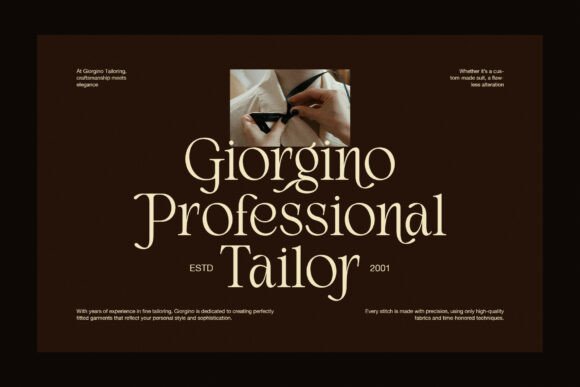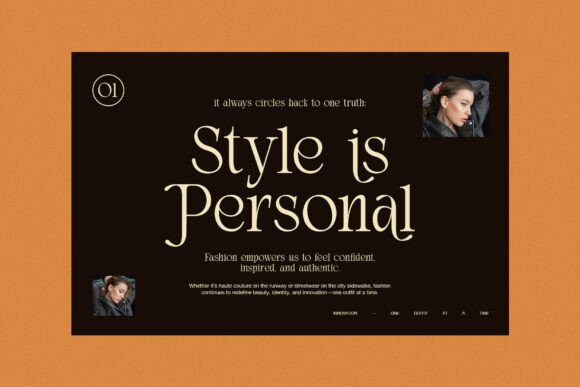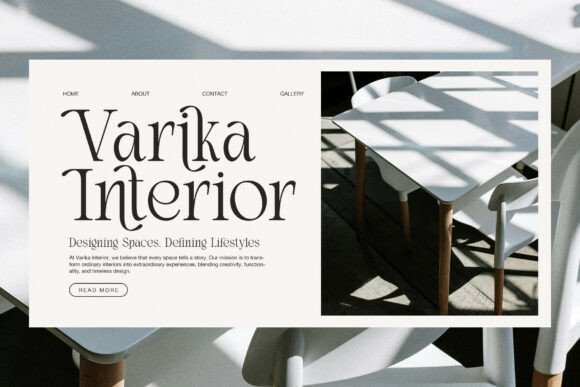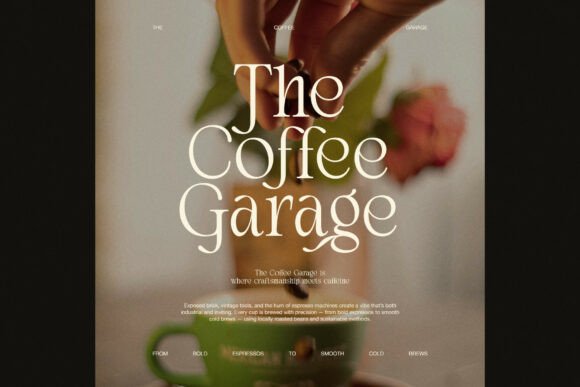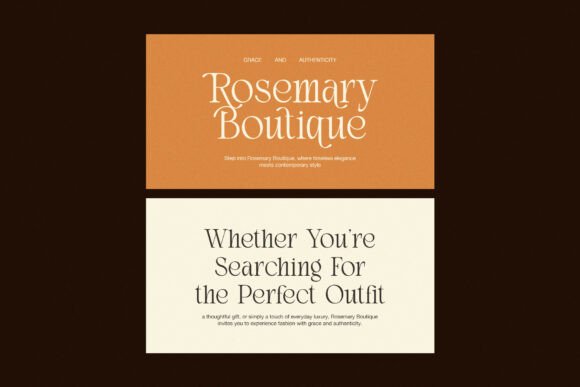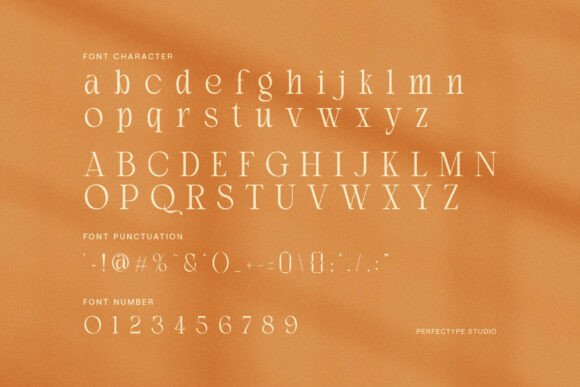
Introducing Damon Font: Elevate Your Designs with Timeless Elegance
In the world of typography, a well-crafted font can make all the difference in bringing a design project to life. For designers and crafters seeking to infuse their creations with sophistication and refinement, Damon Font is an exceptional choice. This elegant serif font is meticulously designed to deliver a sense of luxury and approachability, making it perfect for a wide range of applications.
The Essence of Damon Font
Damon Font is characterized by its thoughtful design, where every curve, serif, and stroke exudes a sense of refinement. This typeface strikes a beautiful balance between modern minimalism and classic sophistication, yielding a luxurious yet approachable aesthetic. The result is a font that feels both high-end and inviting, suitable for various design projects.
Key Features of Damon Font
- Elegant Serif Design: Damon Font boasts a classic serif design, complete with delicate flourishes that add a touch of sophistication to any text.
- High Contrast: The font’s high contrast between thick and thin strokes creates a visually appealing rhythm, making it perfect for headlines, titles, and editorial layouts.
- Smooth Rhythm: Damon Font’s smooth rhythm ensures that text flows effortlessly, enhancing readability and balance in any design.
- Timeless Beauty: With its classic design elements, Damon Font achieves a timeless beauty that transcends fleeting trends, making it an excellent investment for designers.
Applications of Damon Font
Damon Serif Font’s versatility makes it an excellent choice for a variety of creative projects. Some of the ways designers can utilize this elegant font include:
- Brand Identity: Establish a sophisticated brand image with Damon Font, perfect for luxury brands, high-end products, and service providers.
- Packaging Design: Elevate product packaging with a font that communicates elegance and refinement, ideal for premium products and gift items.
- Editorial Layouts: Enhance the readability and aesthetic appeal of editorial content, such as magazines, newspapers, and digital publications.
- Digital and Print Design: Seamlessly transition between digital and print formats with a font designed to maintain its integrity across various mediums.
Why Choose Damon Font?
In a sea of fonts, Damon Serif Font stands out for its unique blend of elegance, sophistication, and approachability. Here are a few reasons why designers and crafters should consider adding Damon Font to their toolkit:
- Instantly Attractive: The stylish look of Damon Font instantly attracts attention, making it perfect for projects where visual impact is crucial.
- Readability and Balance: Damon Font maintains exceptional readability and balance, ensuring that the message is conveyed clearly and effectively.
- Luxurious yet Approachable: Achieve a luxurious look without sacrificing approachability, making Damon Font suitable for a wide range of audiences and applications.
Damon Font is a masterpiece of typographic design, offering a unique blend of elegance, sophistication, and approachability. Whether you’re a designer looking to elevate your brand identity, a crafter seeking to add a touch of luxury to your products, or a publisher aiming to enhance your editorial layouts, Damon Serif Font is an exceptional choice. With its timeless beauty, high contrast, and smooth rhythm, Damon Font is poised to become a staple in the world of typography.
Discover the transformative power of Damon Font and unlock a world of creative possibilities. Experience the elegance, sophistication, and versatility that this exceptional font has to offer.